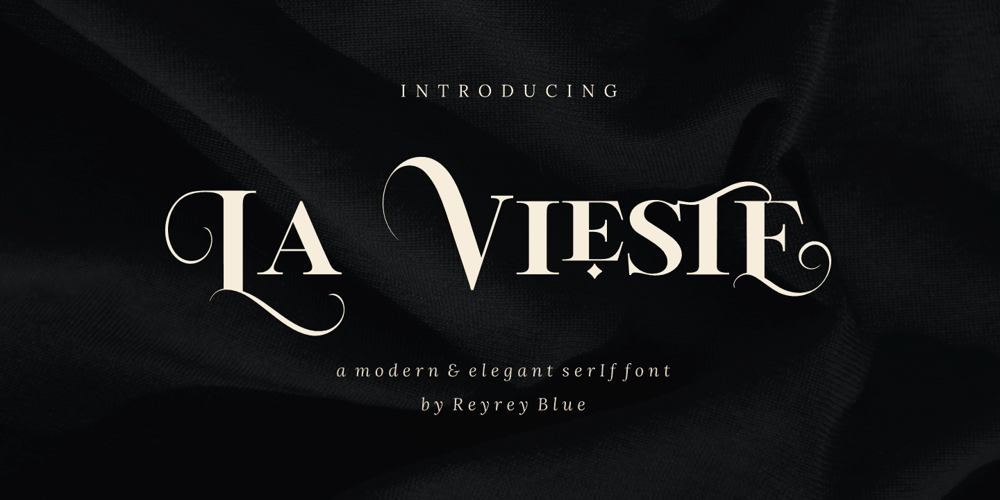
La Vieste Font Family was designed by Risca Anitawati and published by Reyrey Blue Std. La Vieste contains 1 styles and family package options. La Vieste is a Bold, Elegant and Modern font with beautiful ligatures, tons of special alternative glyphs, ornament and multilingual support. It is suitable for branding, signature, wedding invitation, promotion, product packaging, and other needs. Fall in love with its incredibly versatile style and use it to create spectacular designs!Includes: Uppercase and Lowercase Ligatures PUA Encode Support